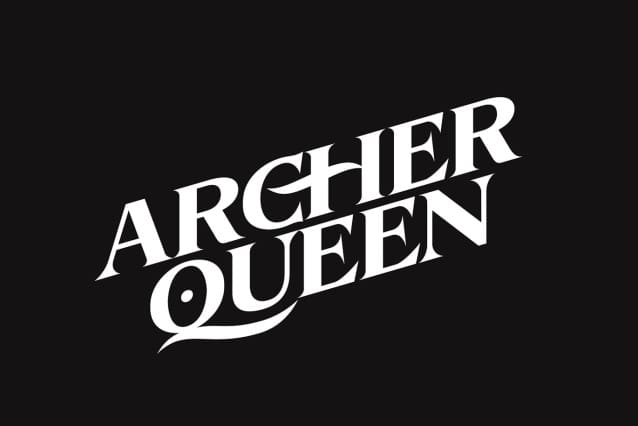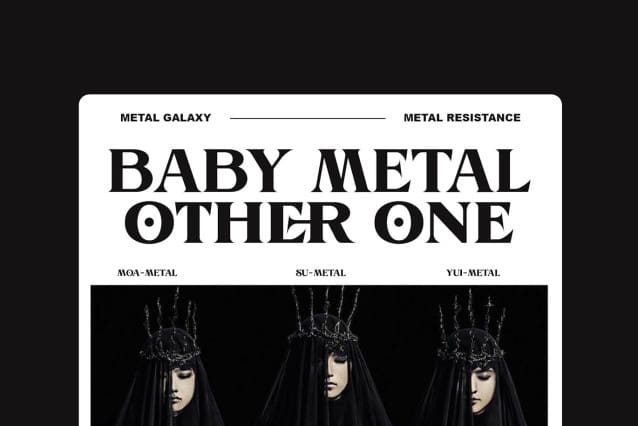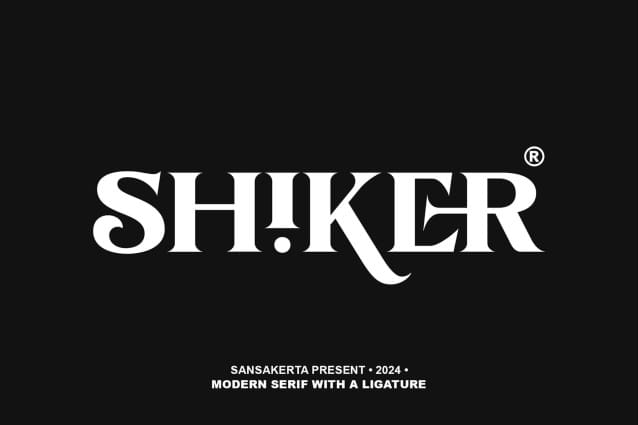
Shiker Font
Shiker Font is a special modern style font. Made with precise precision. With special characters and ligatures that make your work very special. It is perfect for branding design, Logo, greeting cards, title packaging and other designs. Use our fonts immediately to make your work even more impressive.